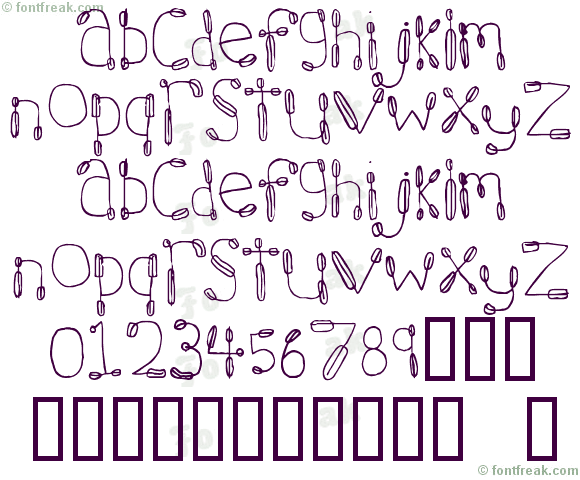
7 hours
The "7 hours" font by Divide By Zero is a unique display typeface that captures attention with its playful and whimsical design. This font features a distinctive hand-drawn aesthetic, characterized by irregular stroke weights and a casual, organic flow that brings a sense of spontaneity to any text. The uneven lines and playful curves create a lively visual rhythm, making it an excellent choice for various creative projects. The spacing is intentionally loose, contributing to its airy feel and enhancing readability while maintaining a relaxed style.
Ideal for use in creative settings, the "7 hours" font shines in applications such as wedding invitations, where its charming look can add a personal touch. It also works wonderfully for movie posters, allowing designers to convey a sense of fun and creativity. Restaurant menus benefit from the font's inviting style, making dishes seem more approachable, while social media graphics can leverage its unique character to engage audiences. Small business owners and graphic designers will find "7 hours" a versatile tool in their creative arsenal, perfect for branding materials that require a quirky and memorable font.
The target audience for this font includes graphic designers, small business owners, and content creators who seek to infuse their projects with a distinct visual flair. Whether for digital or print applications, "7 hours" allows for a level of creativity that is both refreshing and engaging.
In conclusion, the "7 hours" font stands out due to its playful design and unique character, making it an excellent choice for anyone looking to add a touch of whimsy to their work. With a "7 hours font free download" available, there’s no better time to explore its potential in your next project.